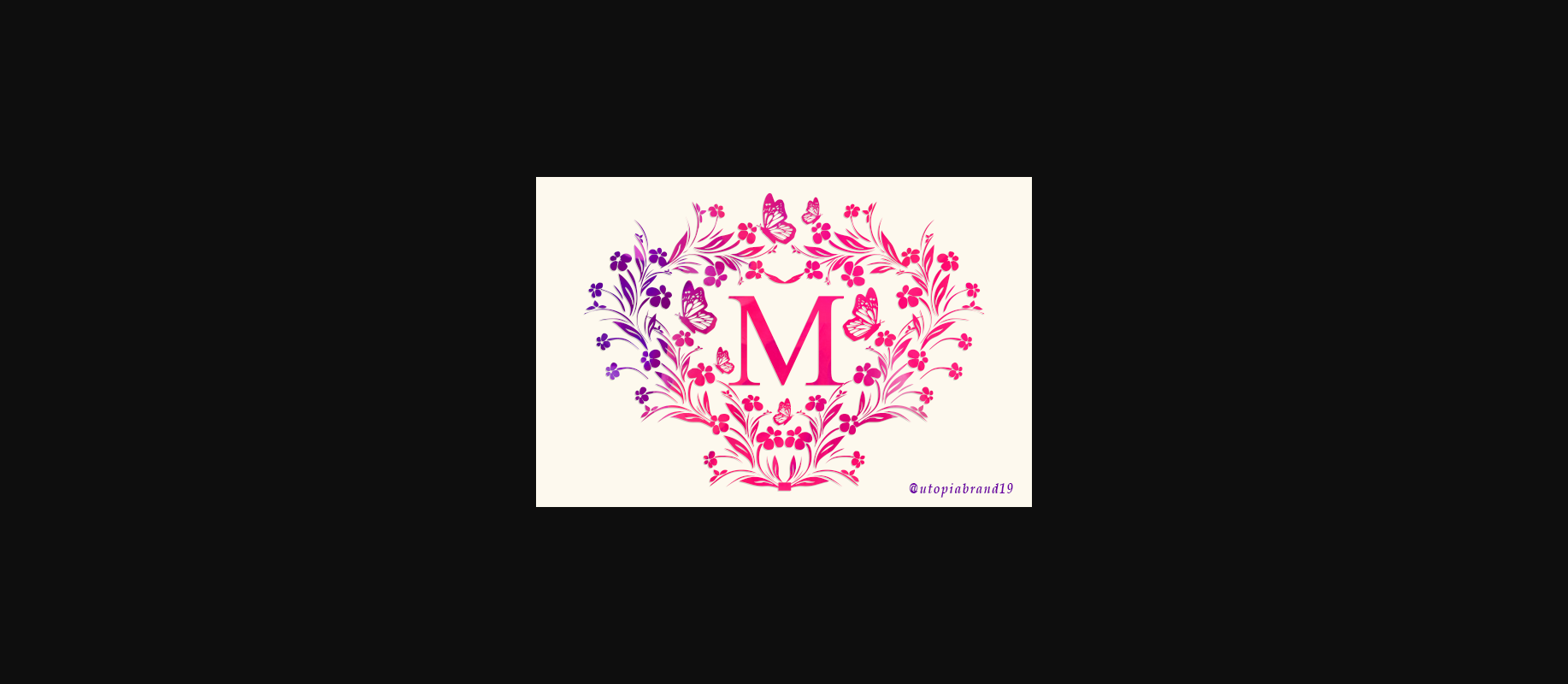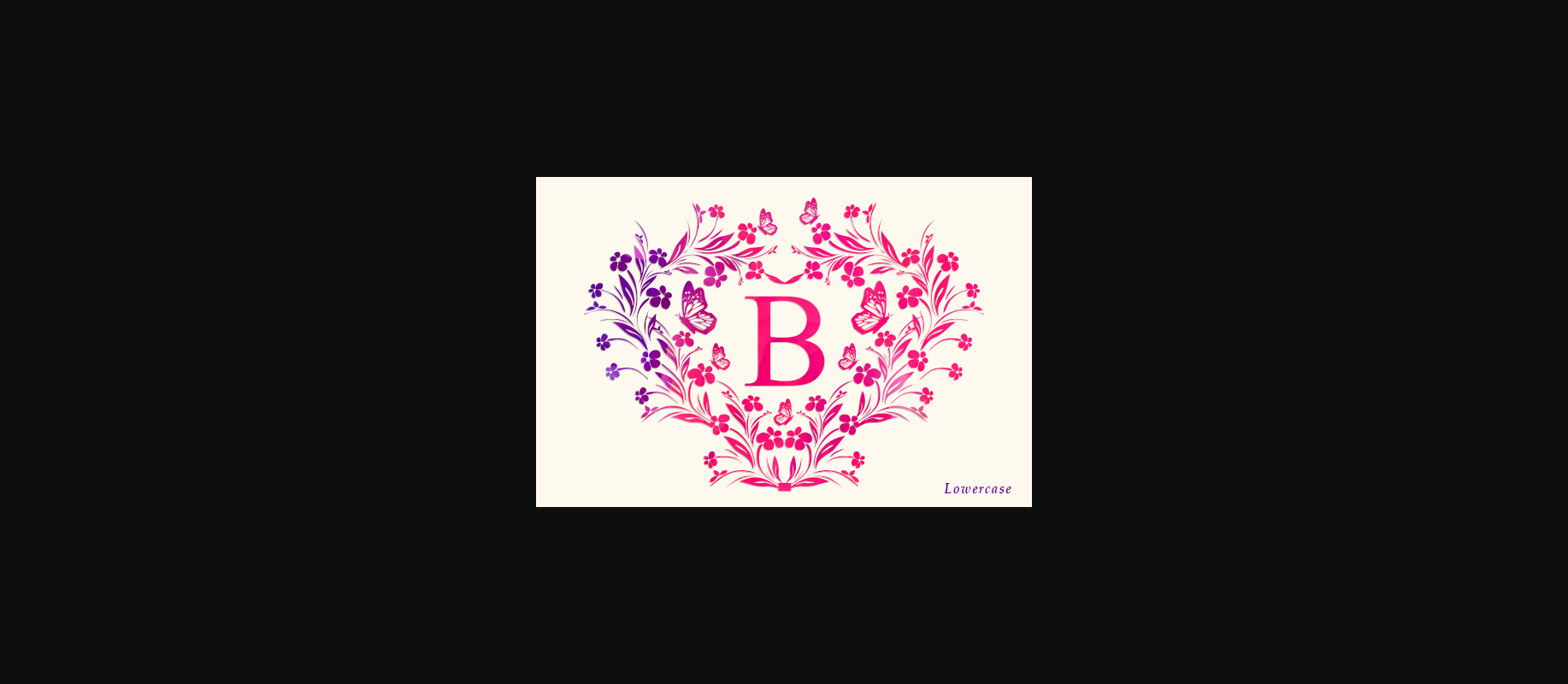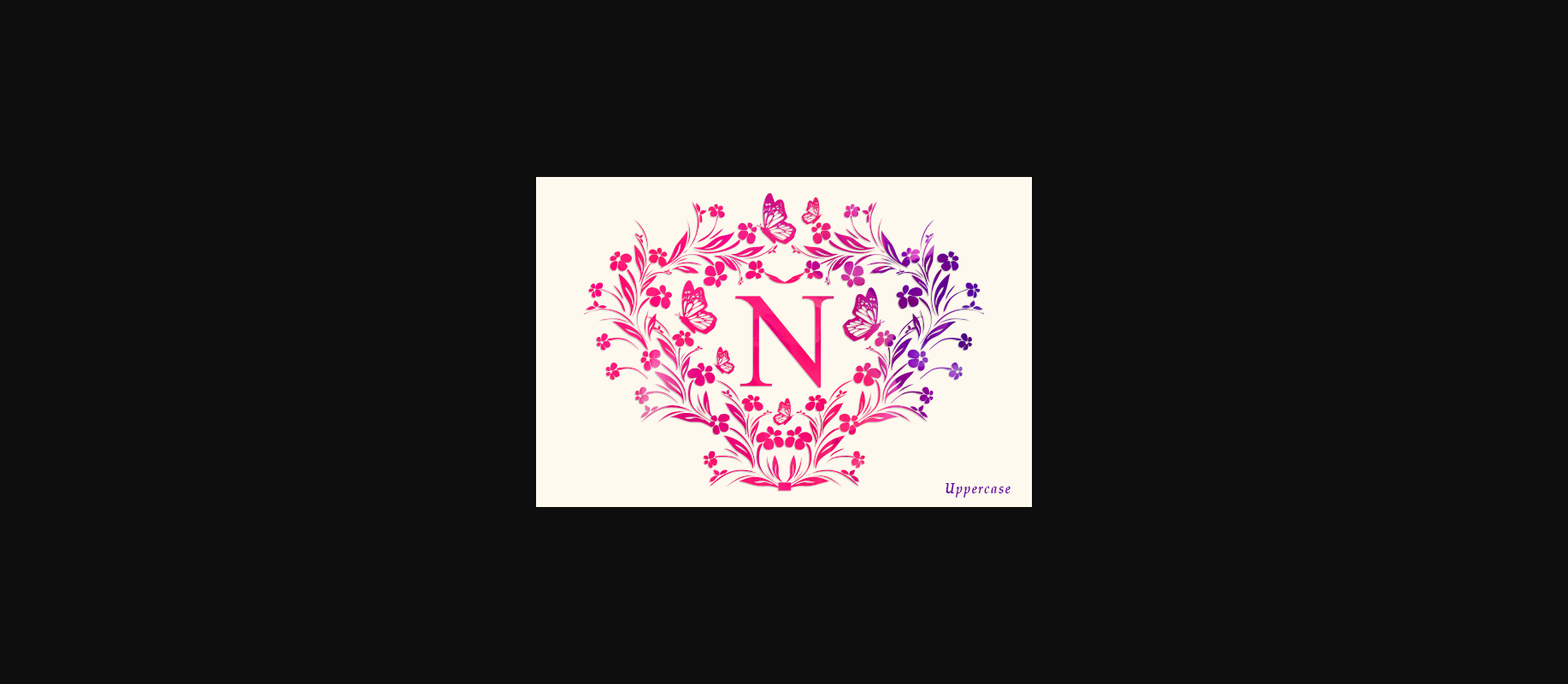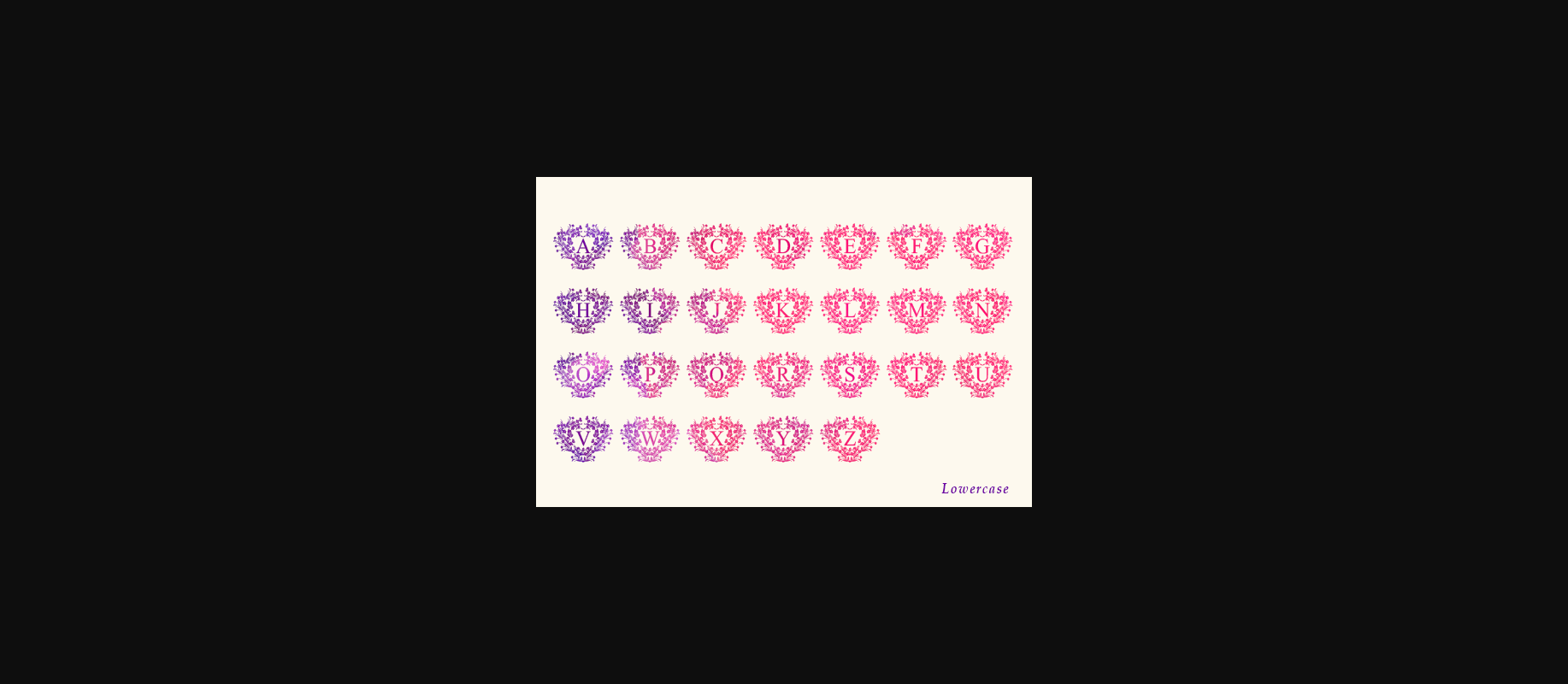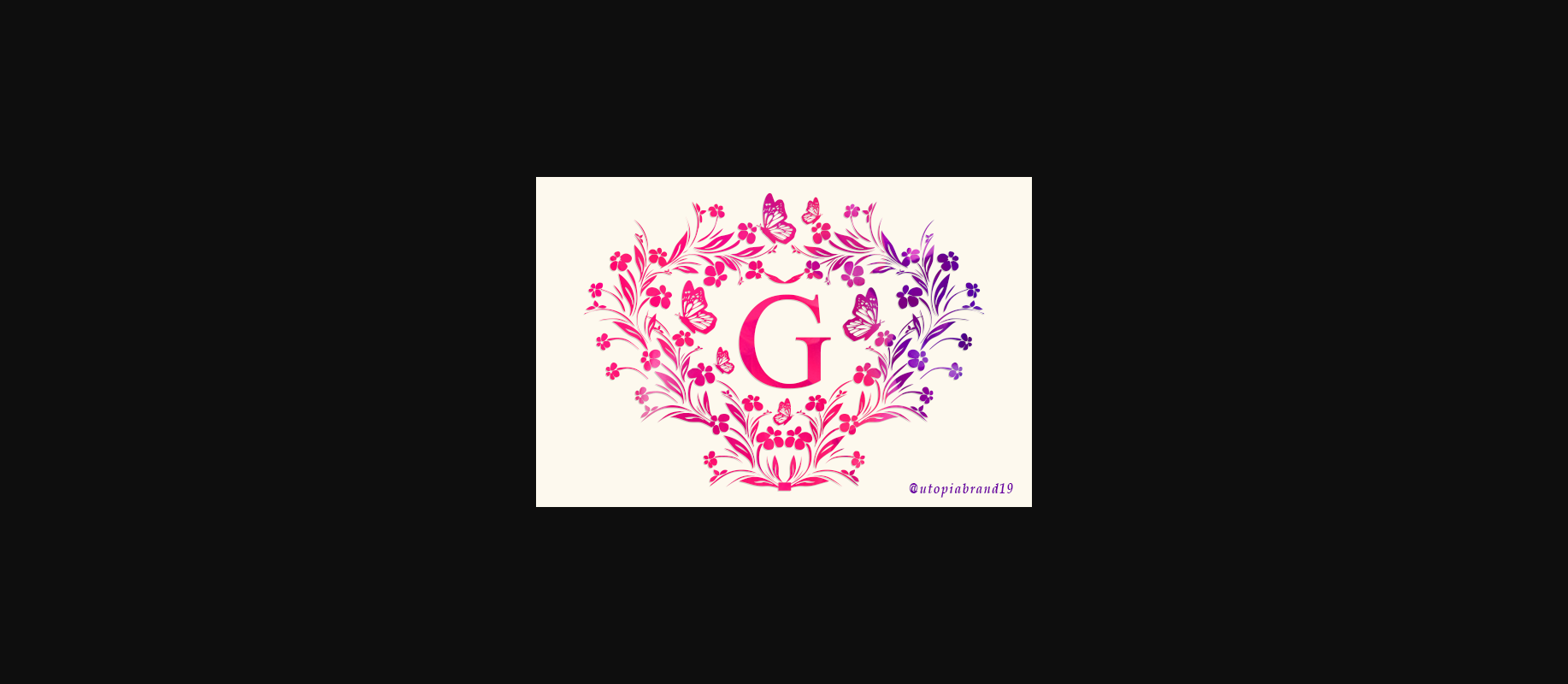
Love Flower Monogram Font
About Love Flower Monogram Font
Love Flower Monogram is a ravishing decorative font, featuring incredibly detailed ornaments. Fall in love with its unique style and use it to create spectacular designs!